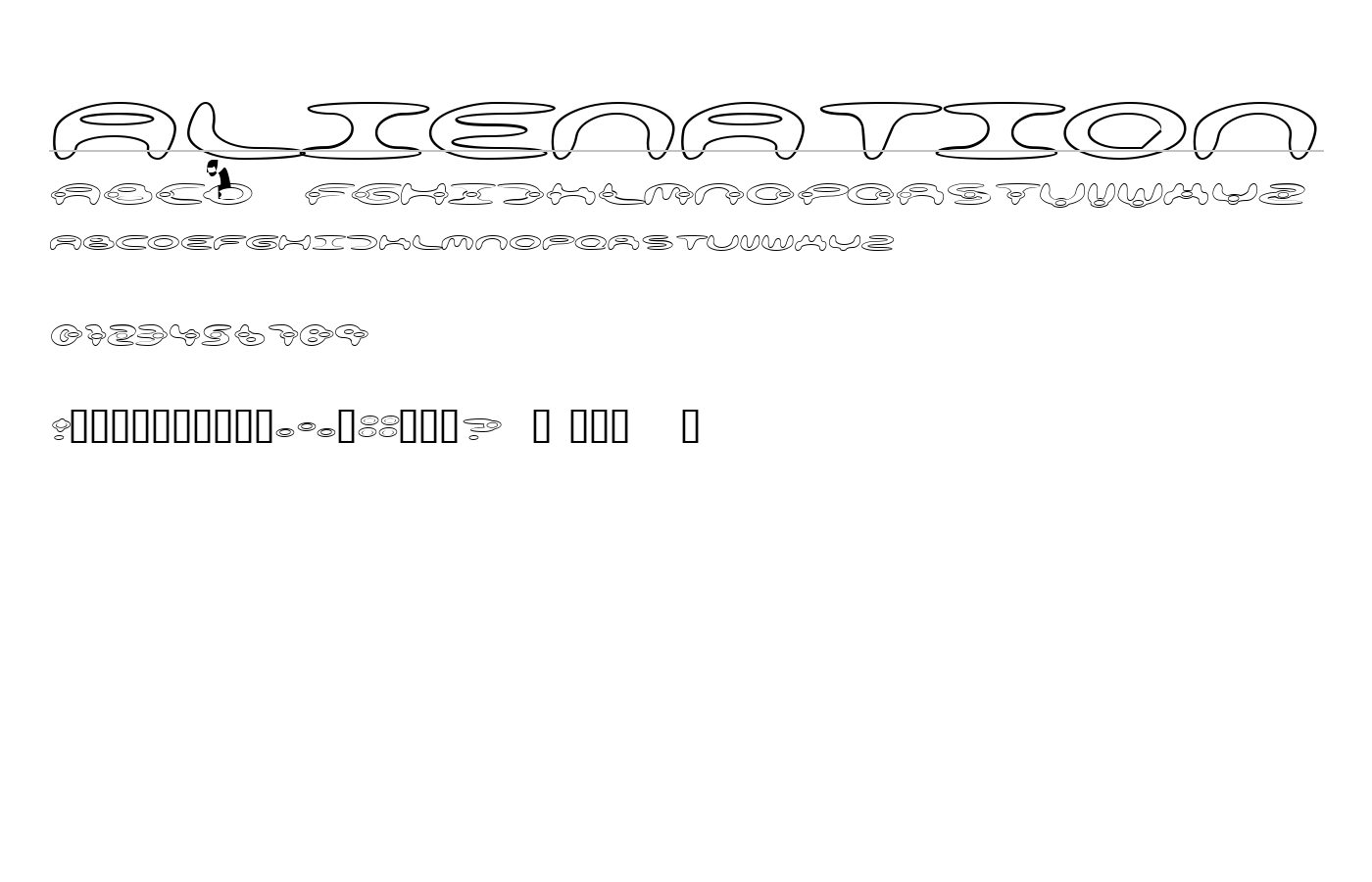
Alienation is a futuristic, decorative sans serif font with an ultra-light, outlined style that gives it a unique, otherworldly appearance. Its rounded, organic shapes and playful curves make it ideal for sci-fi themes, creative logos, and eye-catching headlines where a modern and experimental vibe is desired. This font works best in large display settings where its intricate details can stand out and add a sense of innovation and curiosity.
alienation Font
About alienation Font